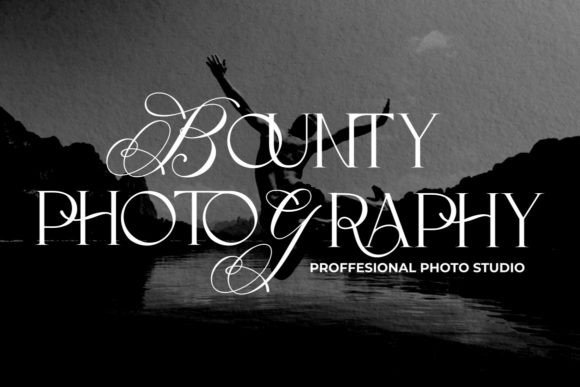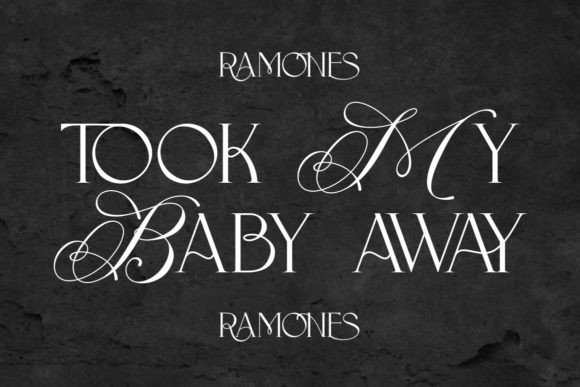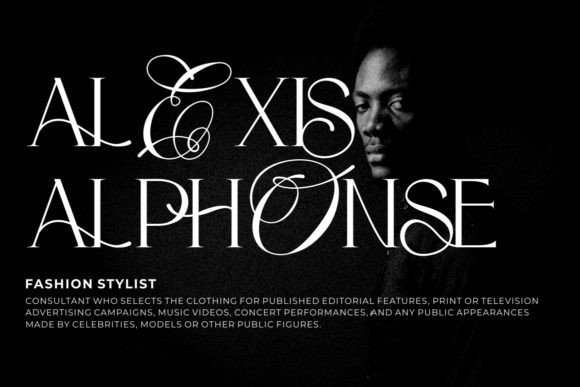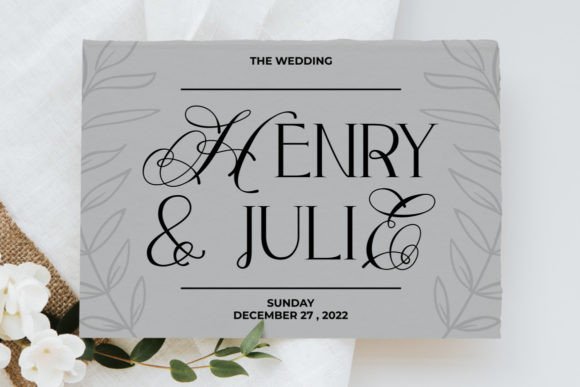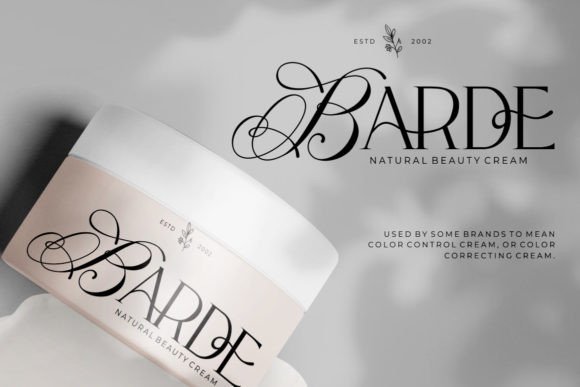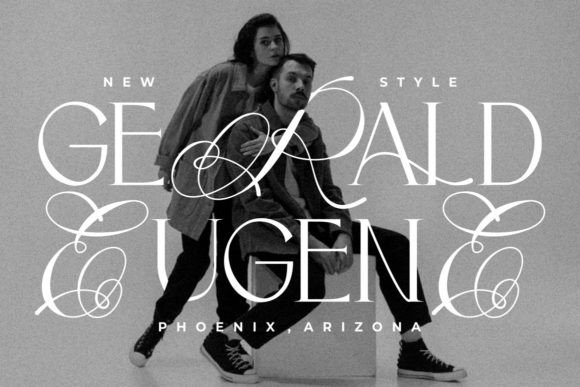
Discover the Elegance of Flece Display – Modern Sans Font
I’ll never forget the time I was working on a high-end branding project, and my client asked for a font that exuded luxury and sophistication. I scoured the internet, tried countless fonts, but nothing seemed to fit the bill. That was until I stumbled upon Flece Display – Modern Sans Font. This stunning font has been a game-changer for me, and I’m excited to share its features and benefits with you.
A Personal Review of Flece Display
- 💯 **Versatility**: Flece Display offers two distinct styles: calligraphy and sans serif, making it perfect for a wide range of design projects.
- 🎨 **Elegant Design**: The font features a unique blend of modern style and elegance, adding a touch of sophistication to any design.
- 📦 **Comprehensive Font Package**: Flece Display includes a range of features, such as OpenType features, glyphs, and stylistic alternates, giving you endless creative possibilities.
- 👍 **Easy to Use**: The font is incredibly easy to use, even for those who are new to designing with OpenType features.
- 🤔 **Limited Cyrillic Support**: Flece Display has limited support for Cyrillic characters, which may be a limitation for some designers.
- ⚠️ **Occasional Kerning Issues**: Some users have reported occasional kerning issues when using the font in certain design applications.
Flece Display was designed with the goal of creating a font that combines modern style with elegance. The designer, inspired by the world of luxury and fashion, aimed to create a font that would be perfect for high-end branding projects, titles, and headings. With its unique blend of calligraphy and sans serif styles, Flece Display is sure to make a statement in any design.
| What is Flece Display? | Flece Display is a modern sans font that offers a unique blend of calligraphy and sans serif styles, perfect for high-end branding projects, titles, and headings. |
| What design projects is Flece Display suitable for? | Flece Display is suitable for a wide range of design projects, including logos, titles, book covers, headlines, magazines, products, invitations, and weddings. |
| Is Flece Display easy to use? | Yes, Flece Display is incredibly easy to use, even for those who are new to designing with OpenType features. |